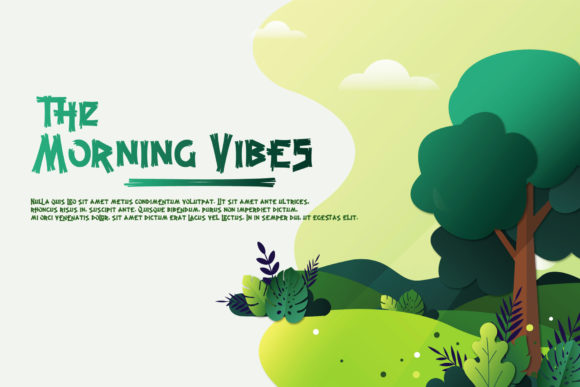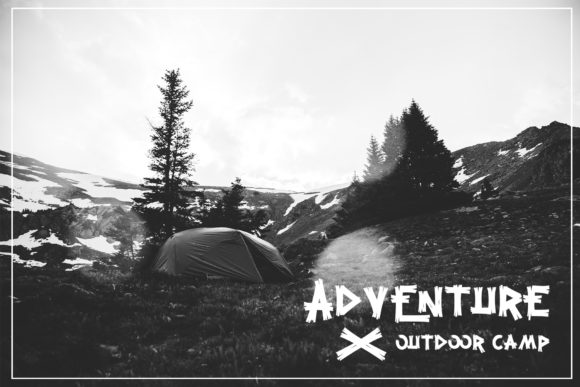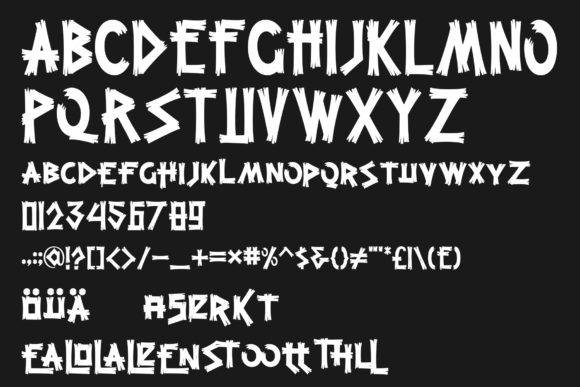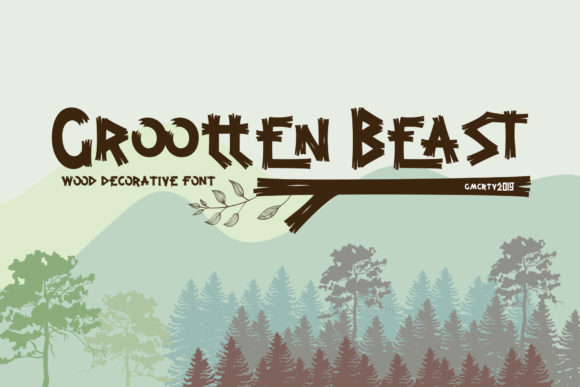
Grootten Beast Font: Unleash the Wild Side of Your Design
Are you tired of using the same old fonts for your design projects? Do you want to add a touch of ruggedness and adventure to your creations? Look no further than the Grootten Beast Font, a wood-inspired display font that’s perfect for any outdoorsy design project!
What is Grootten Beast Font?
Grootten Beast Font is a unique and eye-catching display font that’s inspired by the natural texture of wood. With its rugged and weathered look, this font is sure to add a cool feel to any design project. Whether you’re working on a logo, poster, or packaging design, Grootten Beast Font is the perfect choice for designers and crafters who want to create something truly special.
Key Features of Grootten Beast Font
- Wood-inspired design: Grootten Beast Font features a unique wood-grain texture that gives it a natural and organic look.
- Display font: This font is specifically designed for display purposes, making it perfect for headlines, titles, and other large-format text.
- Cool and rugged feel: Grootten Beast Font has a distinctly outdoorsy feel that’s perfect for designs that require a sense of adventure and exploration.
- High-quality design: This font is carefully crafted to ensure that it’s both visually appealing and highly legible.
Uses for Grootten Beast Font
Grootten Beast Font is a versatile design asset that can be used in a wide range of projects, including:
- Outdoor gear branding: Create a logo or label for your outdoor gear company that stands out from the crowd.
- Adventure travel posters: Use Grootten Beast Font to create eye-catching posters that promote your travel business or inspire others to explore the great outdoors.
- Woodworking and crafting projects: Add a touch of rustic charm to your woodworking or crafting projects with Grootten Beast Font.
- Environmental and conservation campaigns: Use this font to create impactful designs that promote environmental awareness and conservation.
Why Choose Grootten Beast Font?
There are many fonts available that claim to have an outdoorsy or rustic feel, but Grootten Beast Font stands out from the crowd for several reasons:
- Unique design: Grootten Beast Font has a distinctive wood-grain texture that’s unlike any other font on the market.
- High-quality craftsmanship: This font is carefully crafted to ensure that it’s both visually appealing and highly legible.
- Flexibility: Grootten Beast Font can be used in a wide range of projects, from branding and advertising to crafting and woodworking.
Tips for Using Grootten Beast Font
To get the most out of Grootten Beast Font, here are a few tips to keep in mind:
- Use it sparingly: Grootten Beast Font is a display font, so it’s best used sparingly to add emphasis and impact to your design.
- Pair it with complementary fonts: Combine Grootten Beast Font with other fonts that complement its rustic, outdoorsy feel.
- Experiment with colors and textures: Don’t be afraid to try out different colors and textures to enhance the natural look of Grootten Beast Font.
Grootten Beast Font is a unique and versatile design asset that’s perfect for designers and crafters who want to add a touch of ruggedness and adventure to their projects. With its wood-inspired design, cool feel, and high-quality craftsmanship, this font is sure to become a favorite in your design toolkit. So why wait? Download Grootten Beast Font today and unleash the wild side of your design!